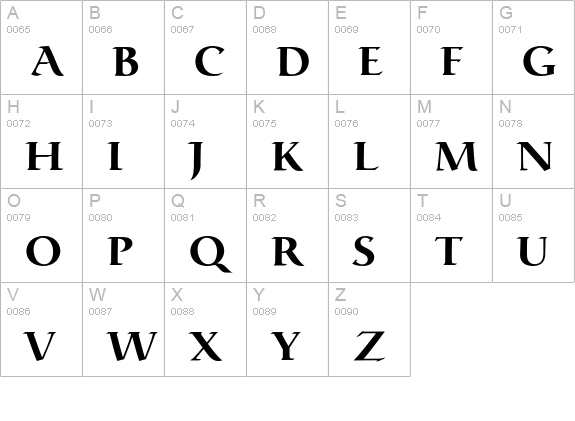
Catull BQ Medium Font Details
Catull BQ Medium is a balanced, medium-weight variant in the Catull typeface family \xE2\x80\x94 well suited to sub-headlines, navigation, and balanced editorial work.
Catull BQ Medium is a timeless and elegant font that exudes sophistication and versatility. With its balanced proportions and graceful curves, this font is perfect for adding a touch of refinement to any design project. Whether used for headings, body text, or branding materials, Catull BQ Medium effortlessly captures attention and conveys a sense of style. What sets Catull BQ Medium apart is not only its visual appeal but also its accessibility. This high-quality font is available for free download at FontsMarket.com, making it easy for designers, creatives, and enthusiasts to incorporate its beauty into their work. Don't miss out on the opportunity to enhance your projects with the charm and class of Catull BQ Medium - download it today and elevate your designs to new heights.